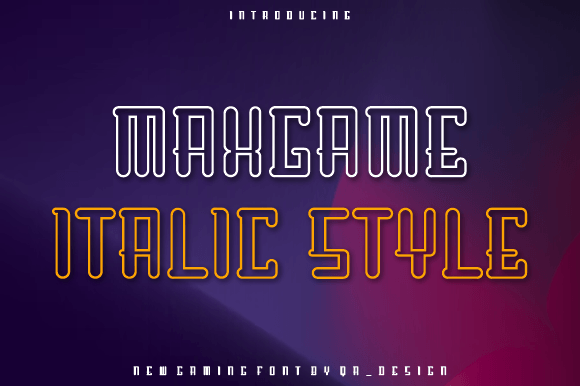
Unleash the Dynamic Spirit in Your Design with Maxgame Font: The Epitome of Gaming Aesthetics
In a world dominated by pixels and controllers, where imagination reigns supreme, allow us to introduce you to Maxgame Font - the ultimate font crafted for the gaming realm and beyond. This display font is not just a collection of letters and symbols; it's a gateway to a world where creativity knows no bounds.
Maxgame Font, a product of qrdesignstd's artistic vision, embodies the essence of the gaming universe with its bold and authentic style. Each stroke, each curve, each angle is meticulously designed to capture the energy, excitement, and competitive spirit that define the gaming experience.
Whether you're a seasoned graphic designer or a passionate gamer seeking to leave your mark on the digital landscape, Maxgame Font is your weapon of choice. Its versatility transcends genres and platforms, making it the perfect companion for logos, t-shirt designs, e-sports branding, and countless other creative endeavors.
But Maxgame Font is more than just visually striking; it's an experience. Its dynamic lines and sharp edges create a sense of movement and energy that draws the viewer into your designs, captivating their attention and leaving a lasting impression.
As you explore the depths of Maxgame Font, you'll discover a treasure trove of possibilities. Its wide range of characters, including both uppercase and lowercase letters, numerals, and an array of symbols, empowers you to craft messages that resonate with your audience. The font's crisp, clean lines ensure readability even at smaller sizes, making it ideal for both print and digital applications.
With Maxgame Font at your fingertips, you gain the ability to transcend the ordinary and embrace the extraordinary. Its bold personality and undeniable charm will elevate your designs to new heights, leaving your audience in awe.
Take the plunge into the world of Maxgame Font today and unlock a realm of limitless creativity. Let your imagination run wild as you craft designs that exude power, passion, and an unwavering dedication to the gaming spirit.